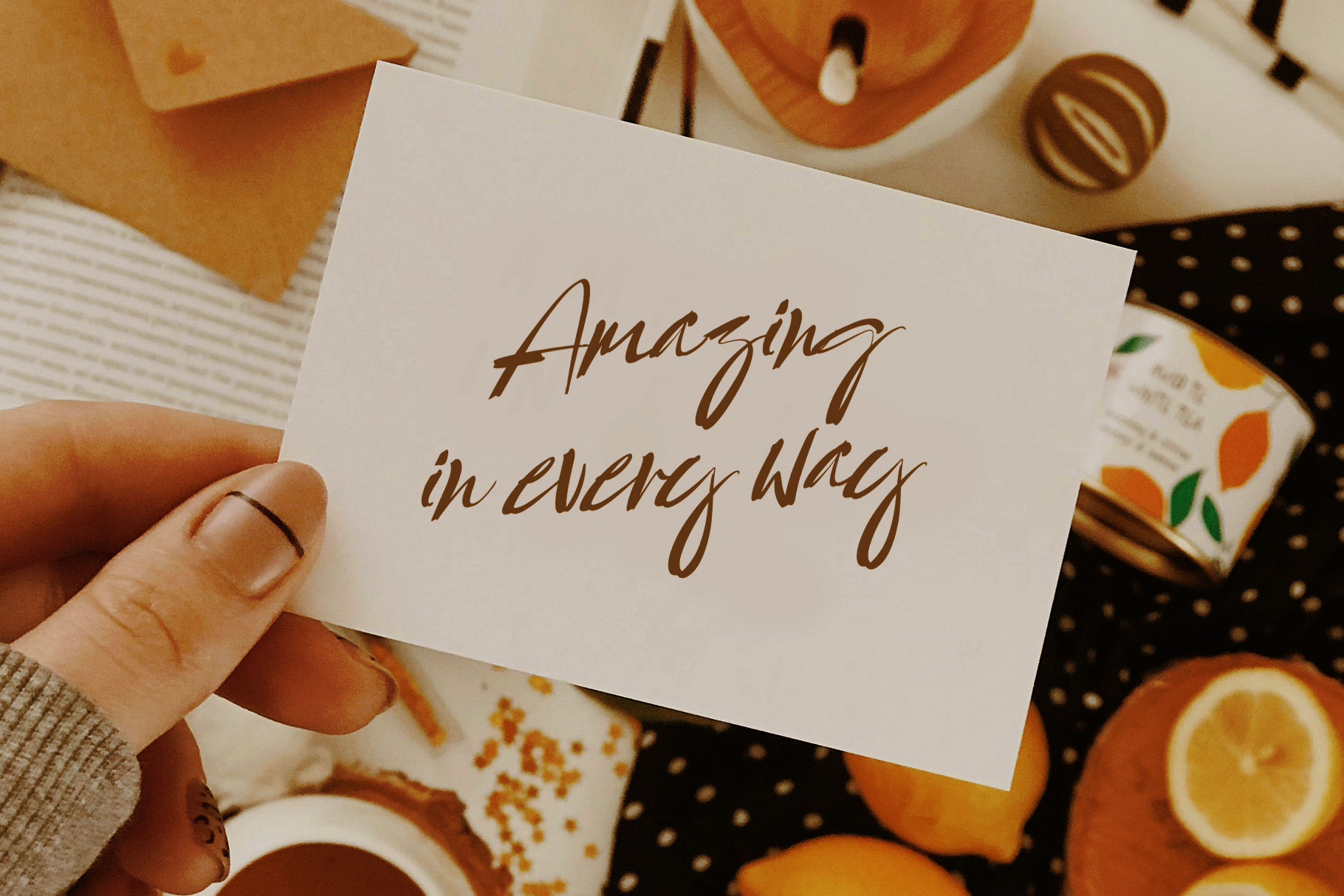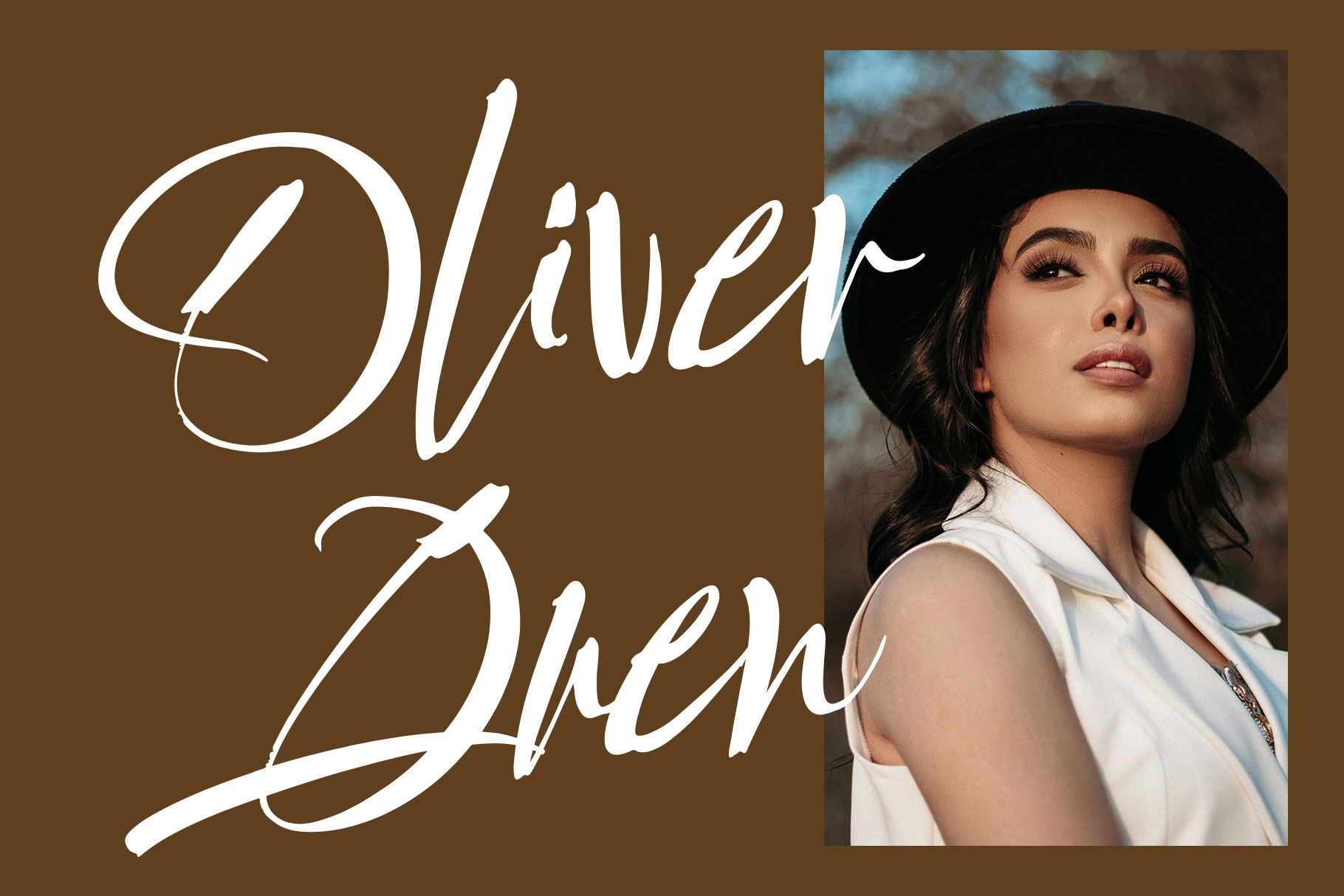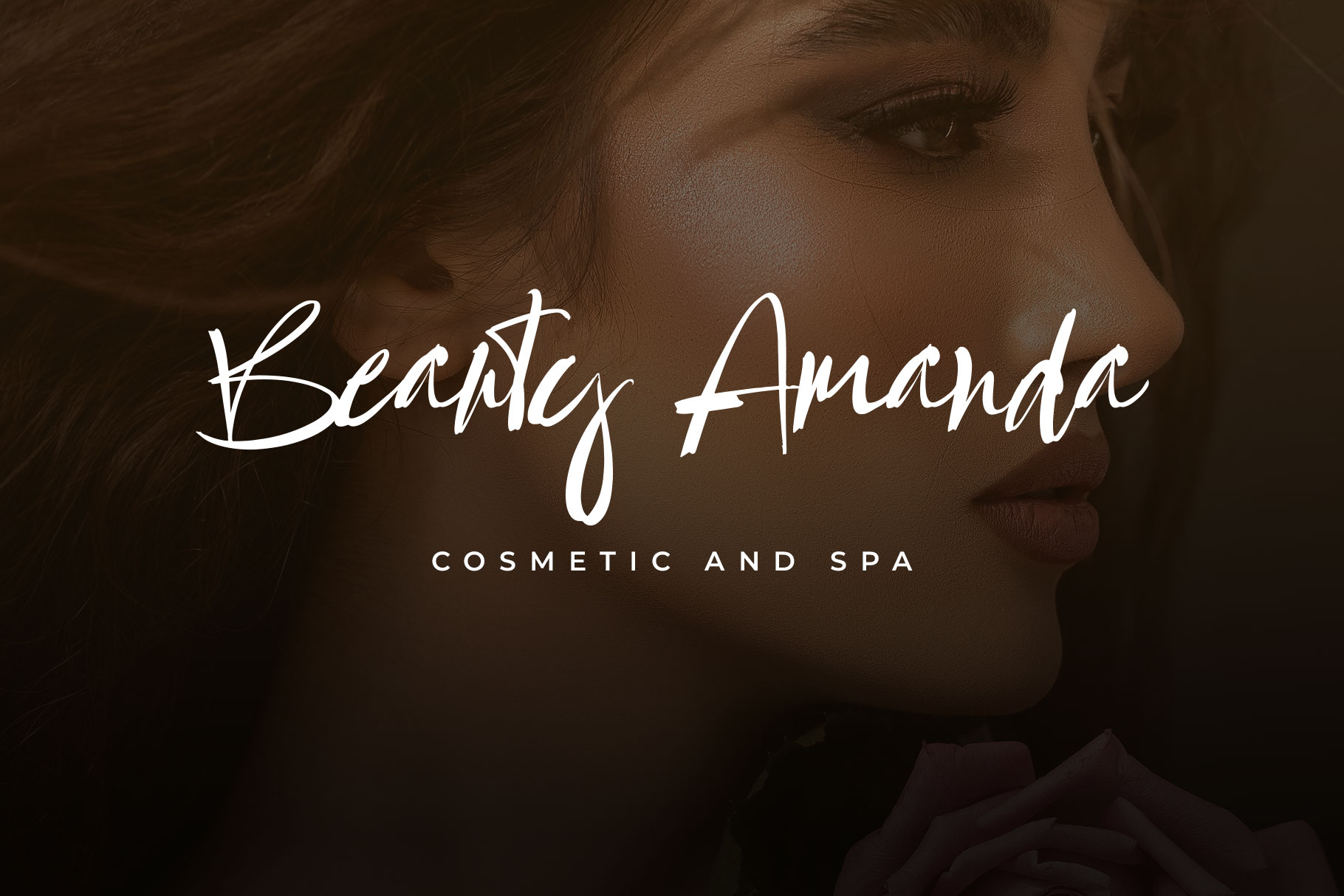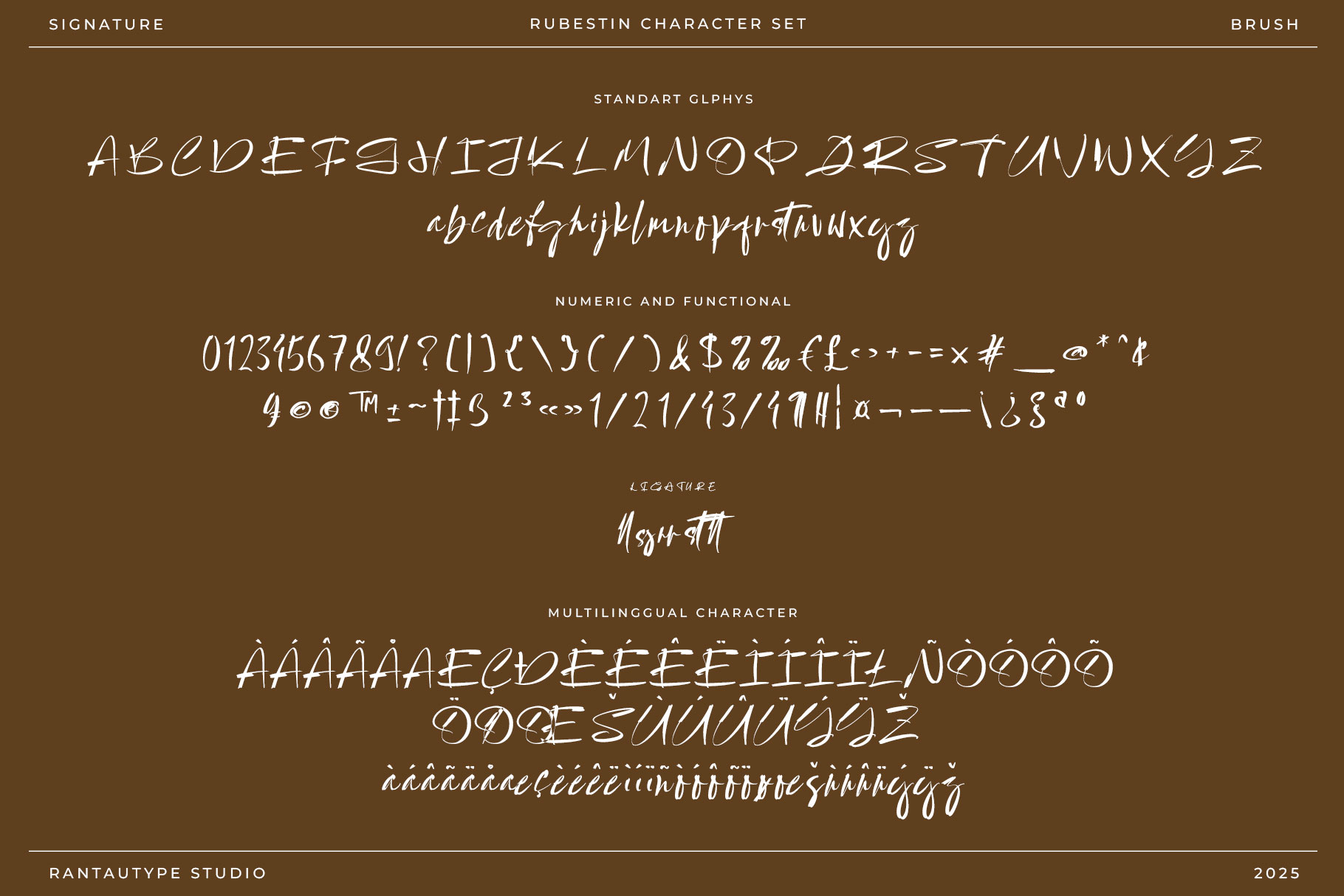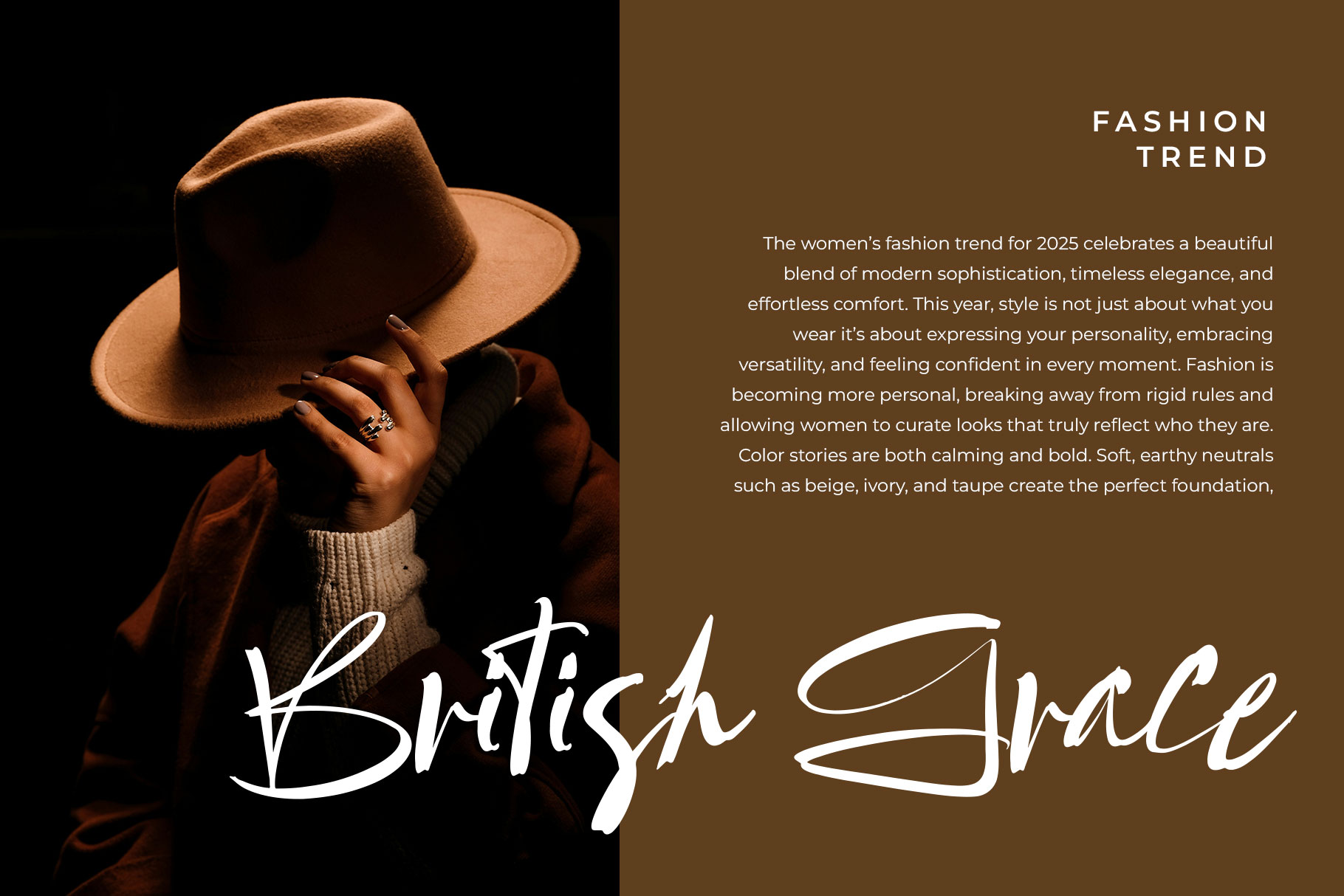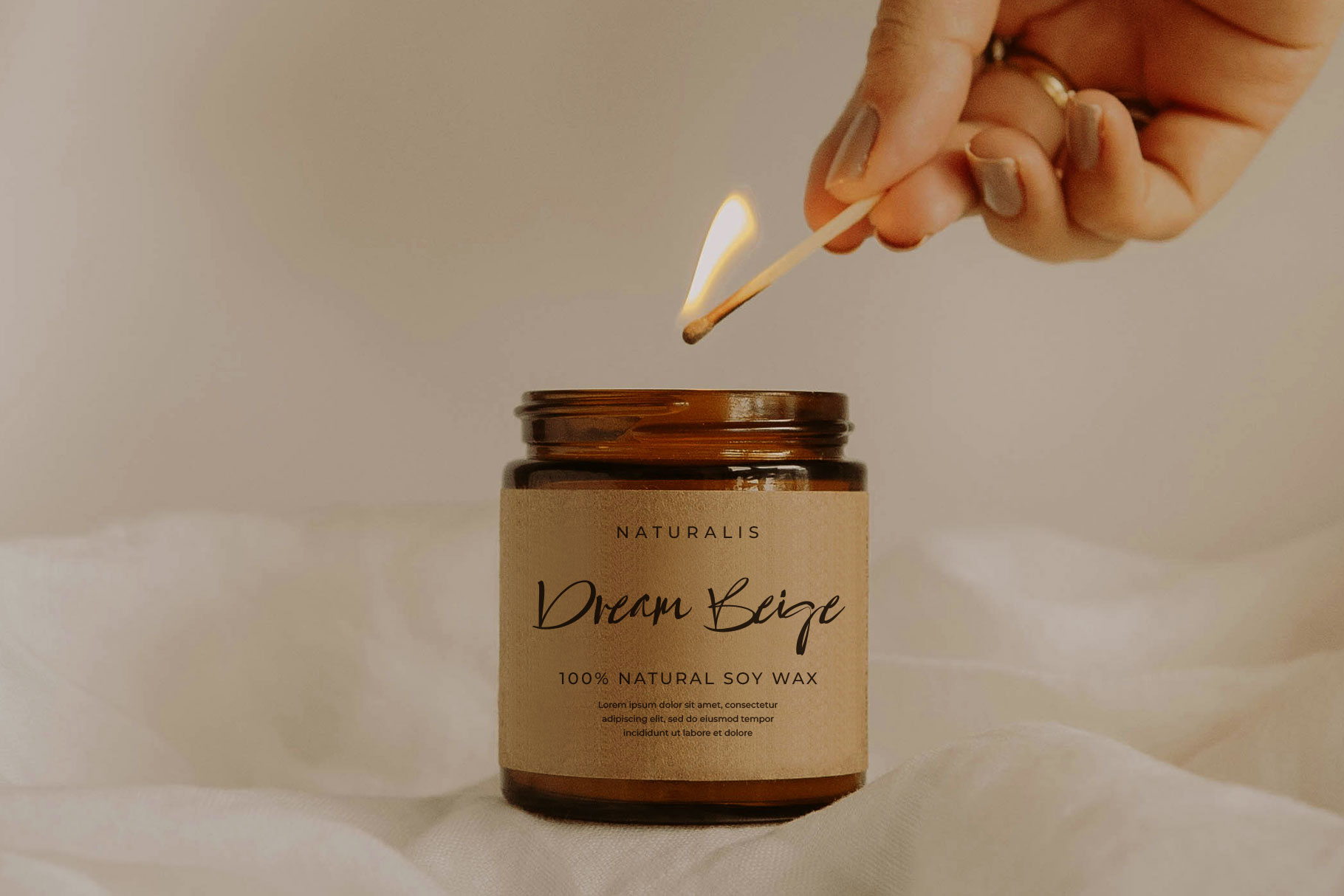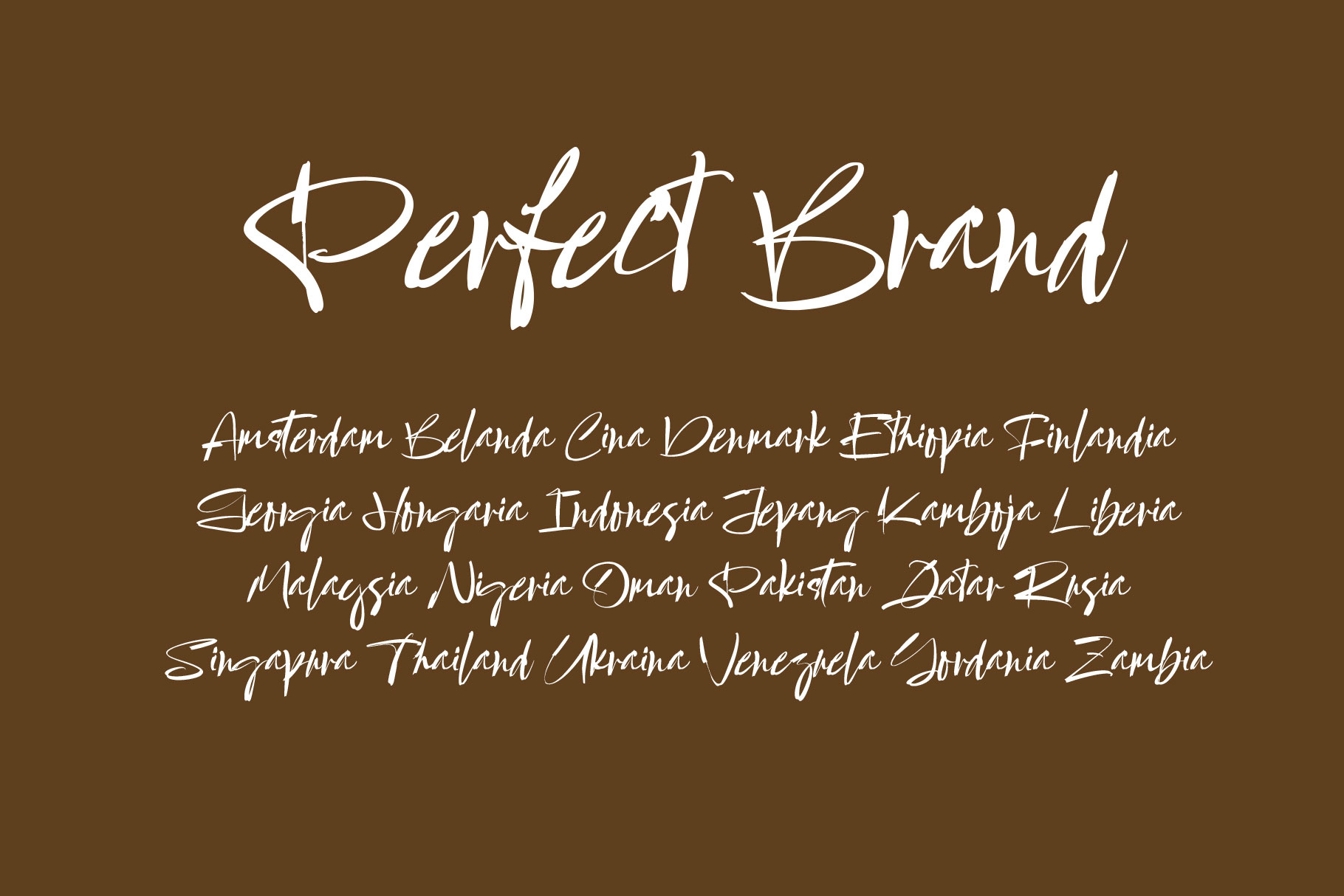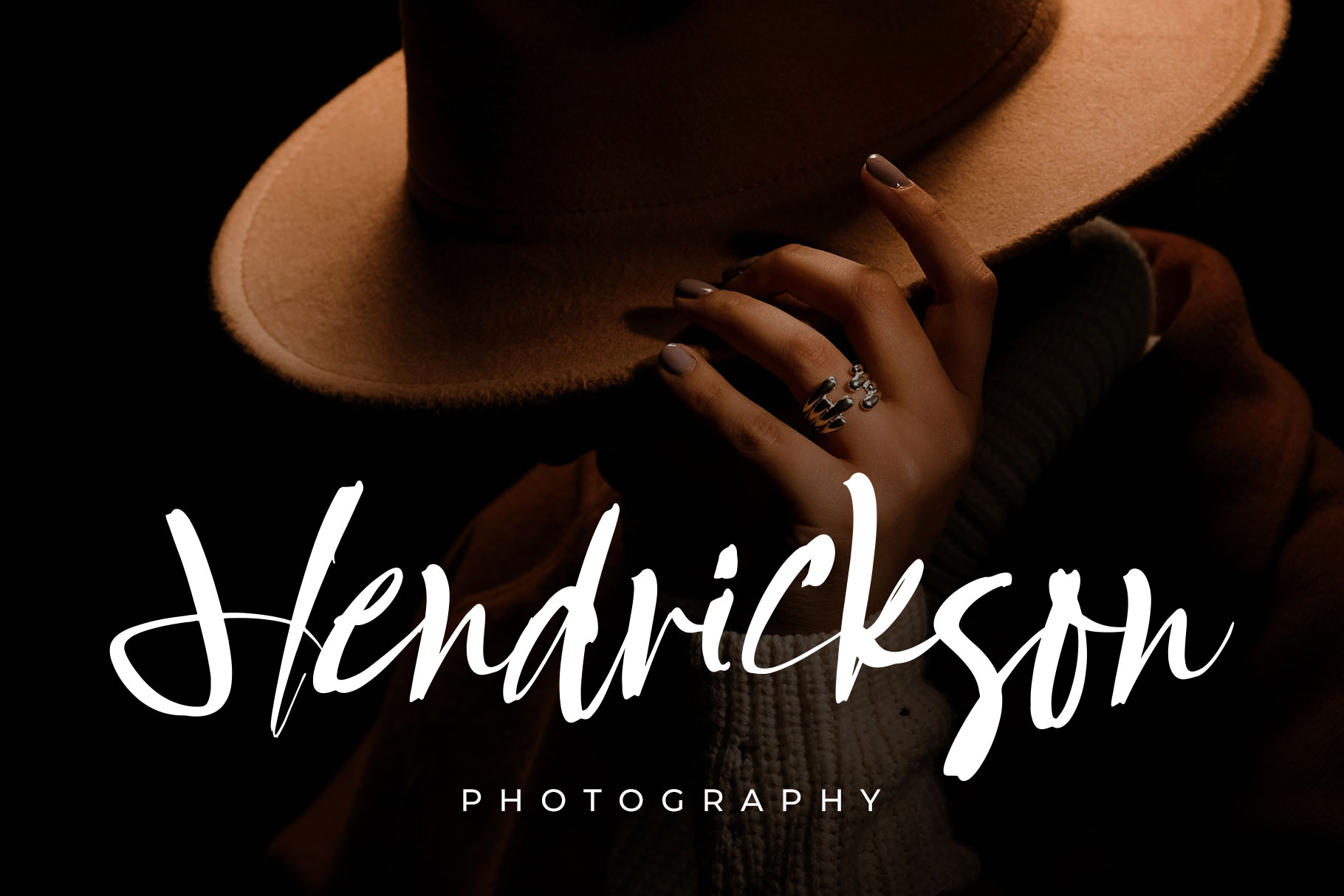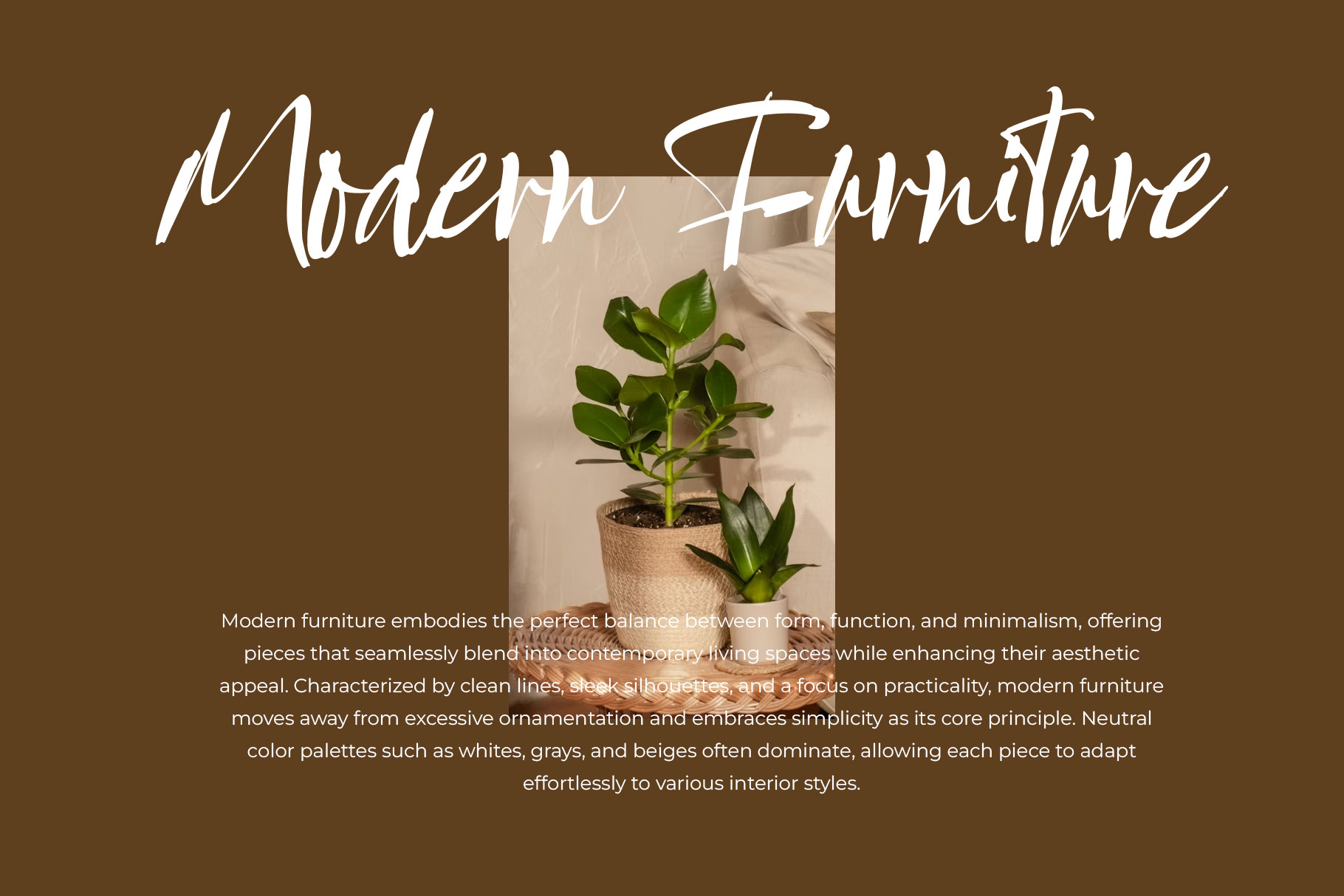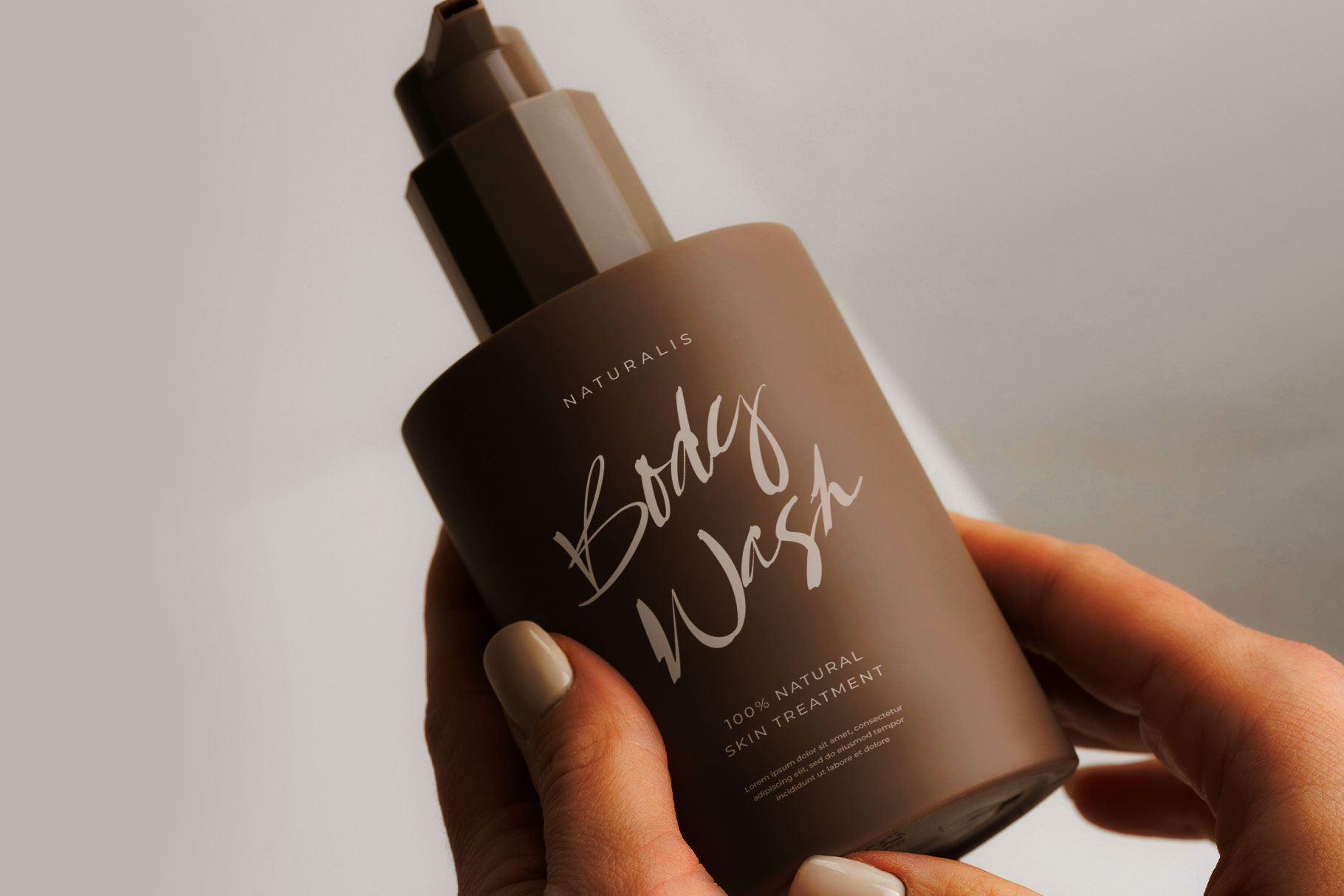
Rubestin Signature Brush Font
Rubestin is signature font with authentic brush with each character. Rubestin is a perfectly choice for any creative endeavor, creating, modern, lifestyle design such as logotype, title, cover, branding, invitations, wedding designs, display and magazine, social media posts, advertisements, printed quotes, product packaging, corporate brand, product designs, labels, photography, watermarks, special events and any other project with signature touch.